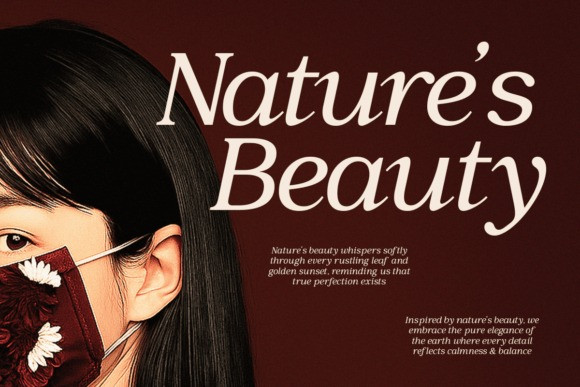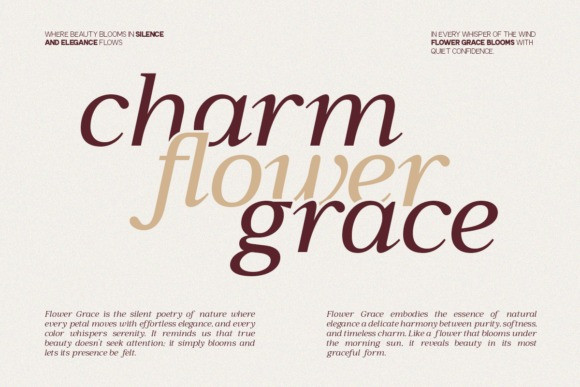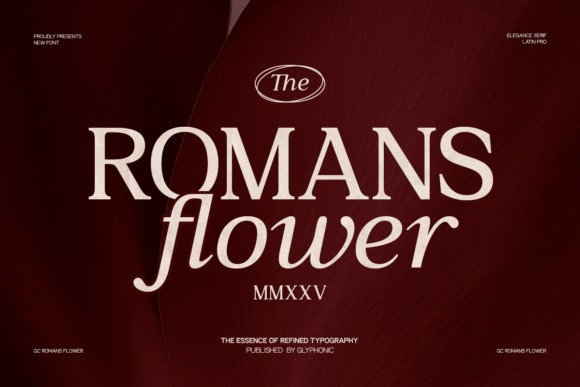
GC Romans Flower Font is a magnificent Elegance Serif font that beautifully captures the essence of refined, classic typography with a modern, luxurious twist.
The typeface features an intoxicating duality, pairing sharp, high-contrast serif capitals with flowing, elegant script-style lowercase letters that incorporate stunning swooping swashes and beautifully detailed alternates. The exquisite design of the GC Romans Flower font makes it the perfect choice for high-end luxury branding, editorial design, and sophisticated invitations, instantly elevating any project with its unique blend of ancient gravitas and contemporary flair.
This premium display typeface includes a comprehensive set of glyphs, PUA-encoded characters for easy access to all its beautiful stylistic alternates, and extensive multilingual support, ensuring that this opulent GC Romans Flower typeface is as versatile as it is visually arresting.
Its meticulous detailing and refined curves solidify the GC Romans Flower font as a true statement piece for any designer seeking to convey prestige and timeless elegance.